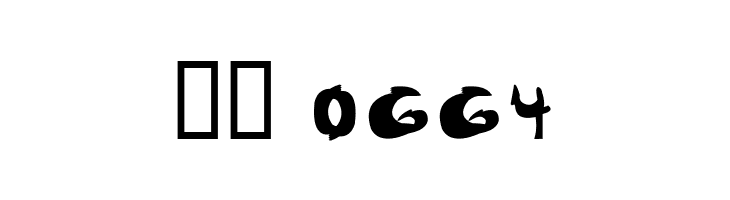
• CameronSansLightOblique
( Shara Weber - sharasfonts.com )
A sleek, modern sans-serif font with light weight and oblique style.
• CameronSansOblique
( Shara Weber - sharasfonts.com )
A modern, oblique sans-serif font with clean lines and a dynamic style.
• Cameroon
( Fonts by Moch Zaenal Abidin )
A bold, playful font with thick, irregular strokes and a hand-drawn feel.
• Cameta Cuttes Regular
An elegant script font with flowing curves and bold uppercase letters.
• Camieis
A bold, geometric font with a futuristic and technological style.
• Camigata
An elegant and flowing script font with graceful curves and sophisticated style.
• Camila
A bold, expressive handwritten font with a brush-like texture.
• Camila
A stylish, cursive script font with elegant, flowing lines.
• Camila Audrey
A bold, cursive font with elegant loops and artistic flair.
• Camila Hobert
A flowing, cursive font with elegant, sweeping lines and a hand-drawn appearance.
• Camila Raindrop
A graceful, cursive script font with elegant, flowing lines and high contrast.
• Camilla
( Fonts by Antrax - ja-fonts.iweb.pl )
A modern vintage font with rounded edges and elongated vertical lines.
• Camilla
A classic serif font with a modern touch, offering elegance and readability.
• Camilla DEMO
A casual, handwritten font with a dynamic and flowing style.